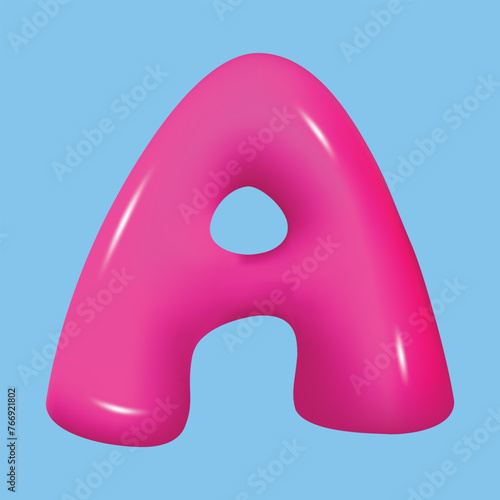
bubble font. glossy 3d pink super bubble font in plastic style. Alphabet font A. inflated balloon letters. trendy english type. realistic vector illustration